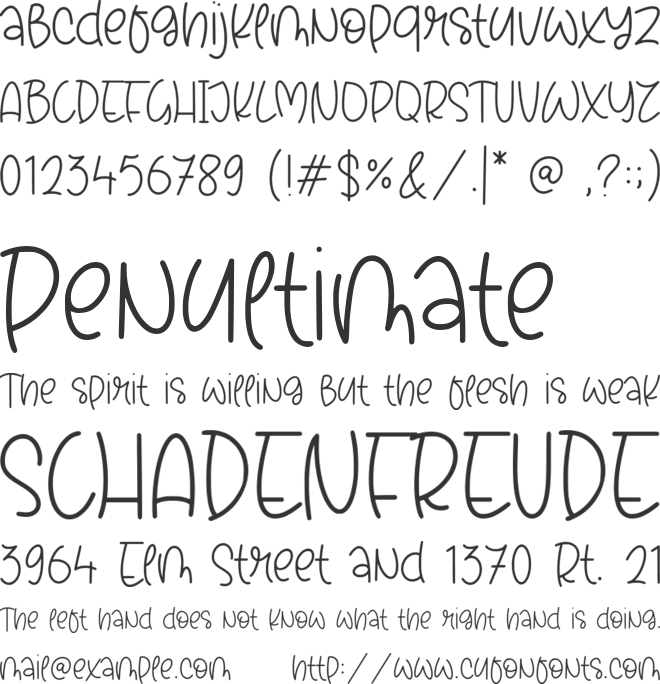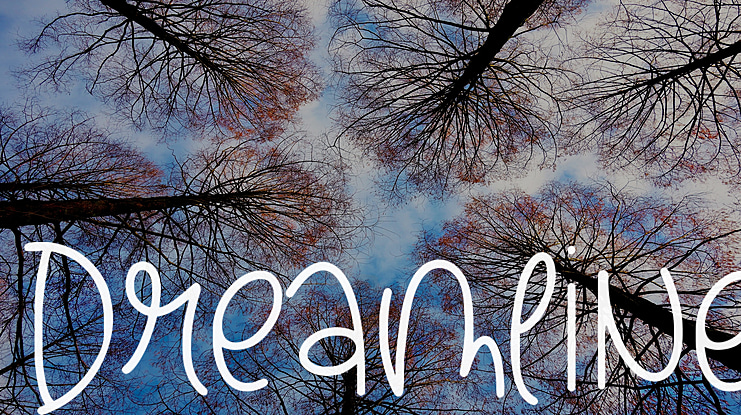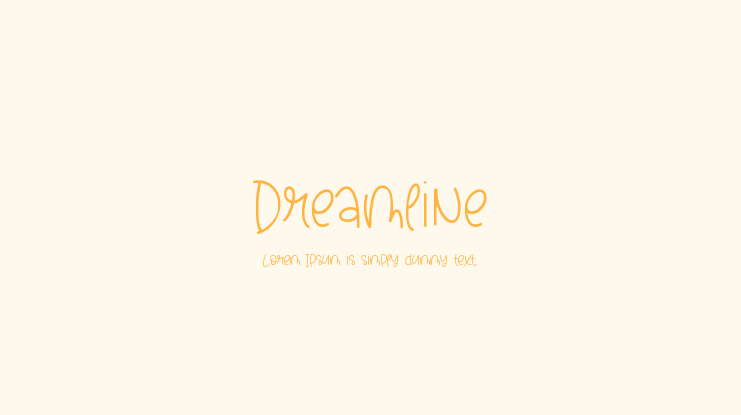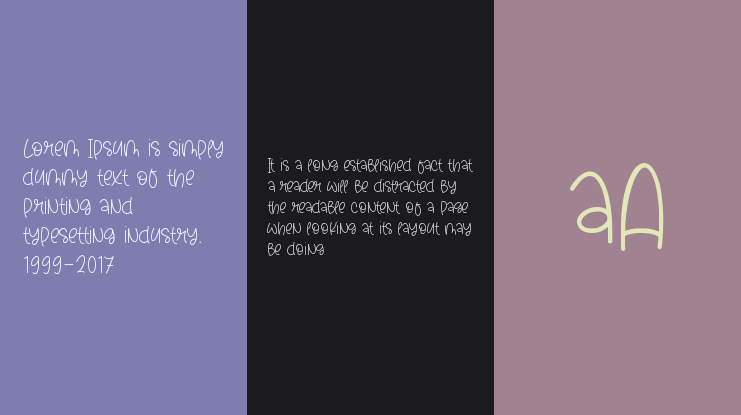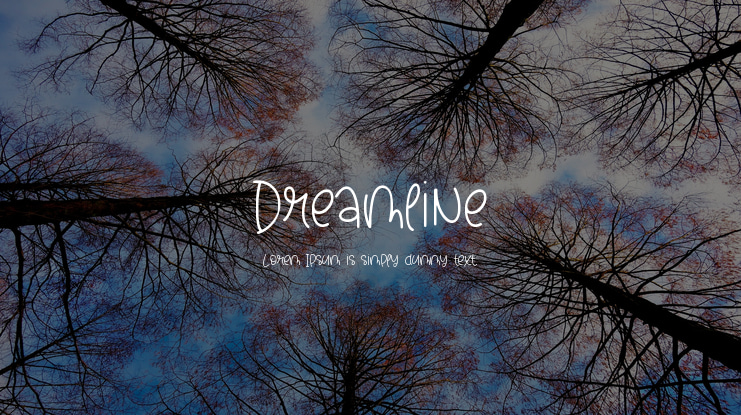
Dreamline Font
Proudly Present, Dreamline Font.
Dreamline is a Fun Monoline Display Handdrawn Font.
Dreamline is perfect for product packaging, branding project, megazine, social media, wedding, or just used to express words above the background.